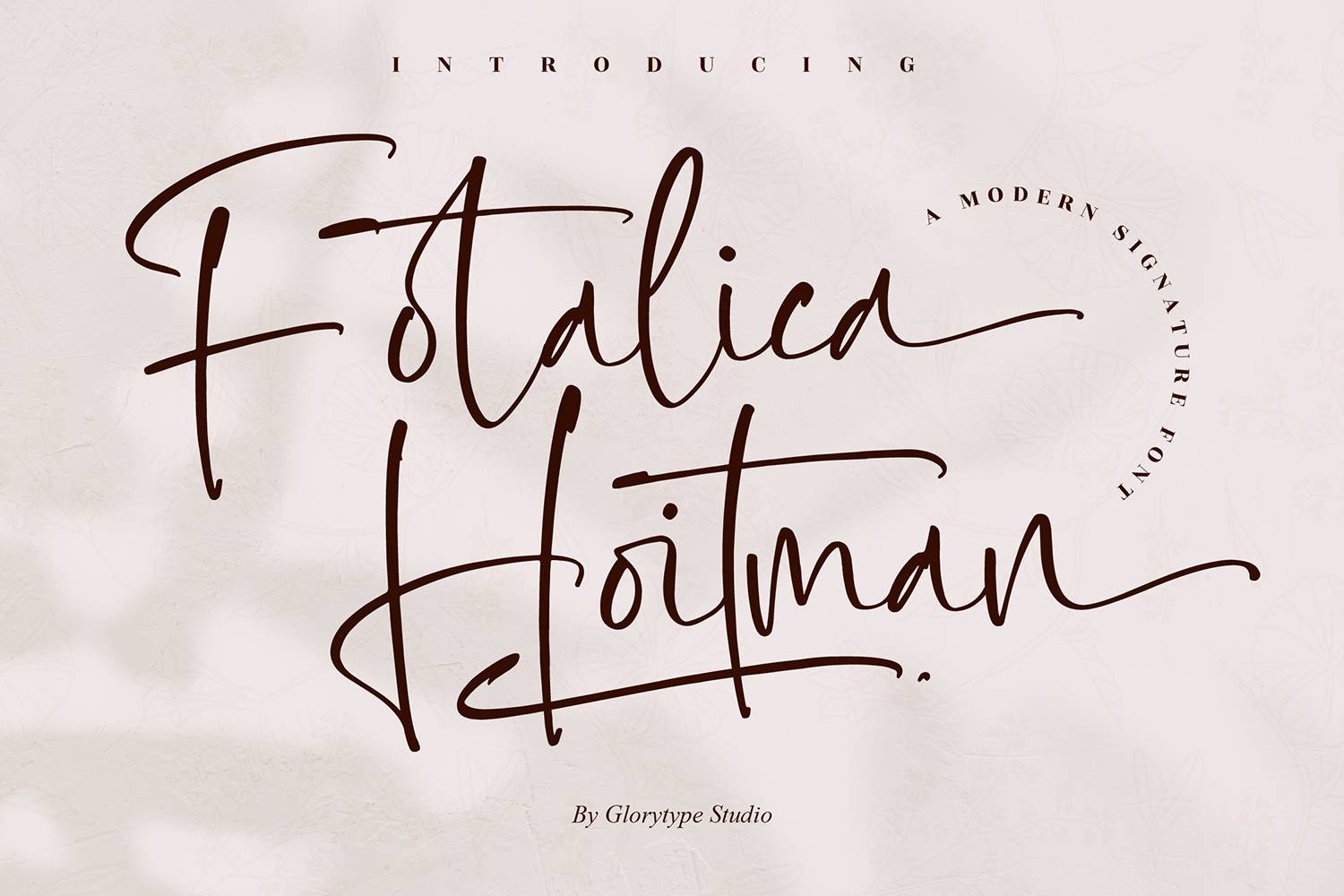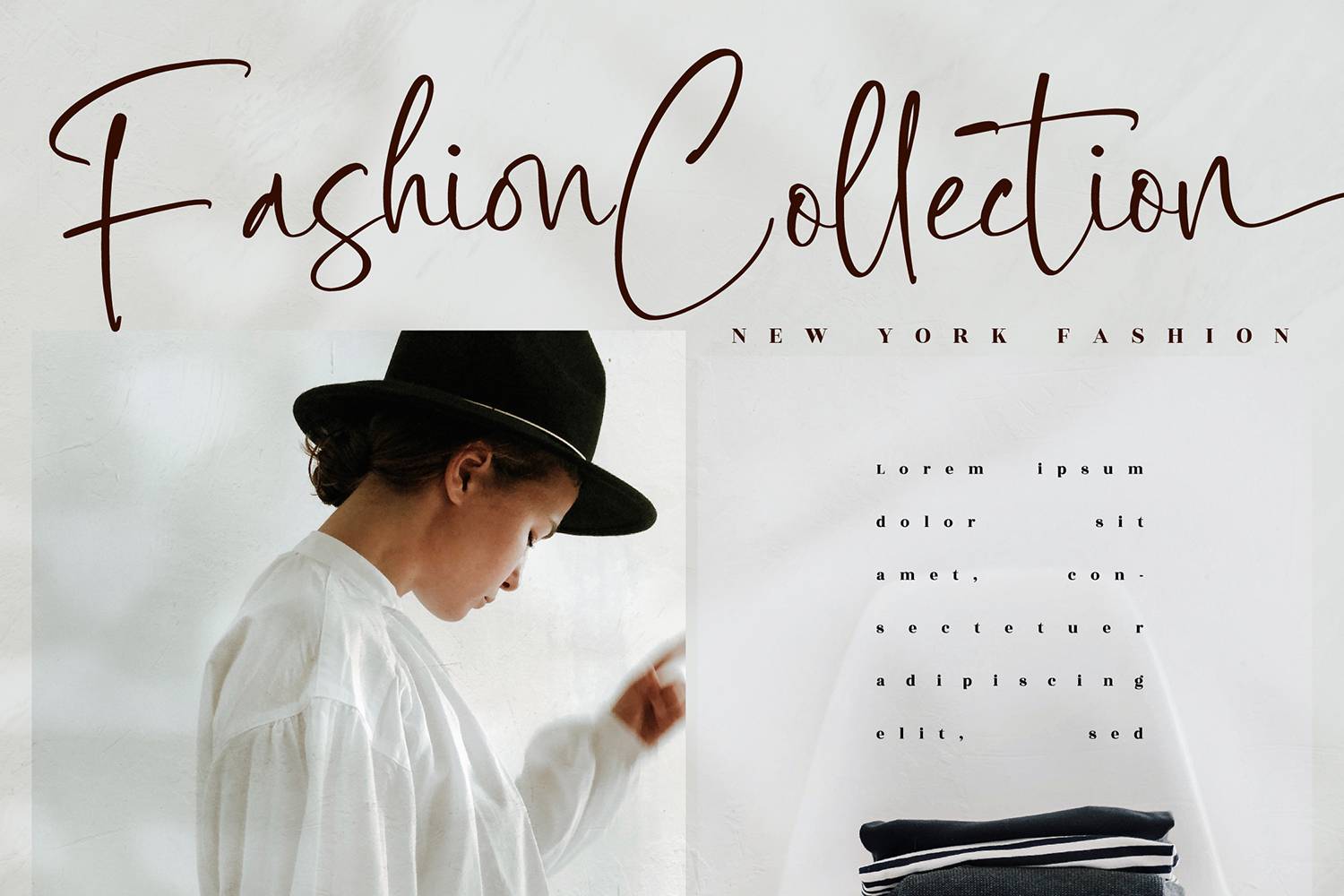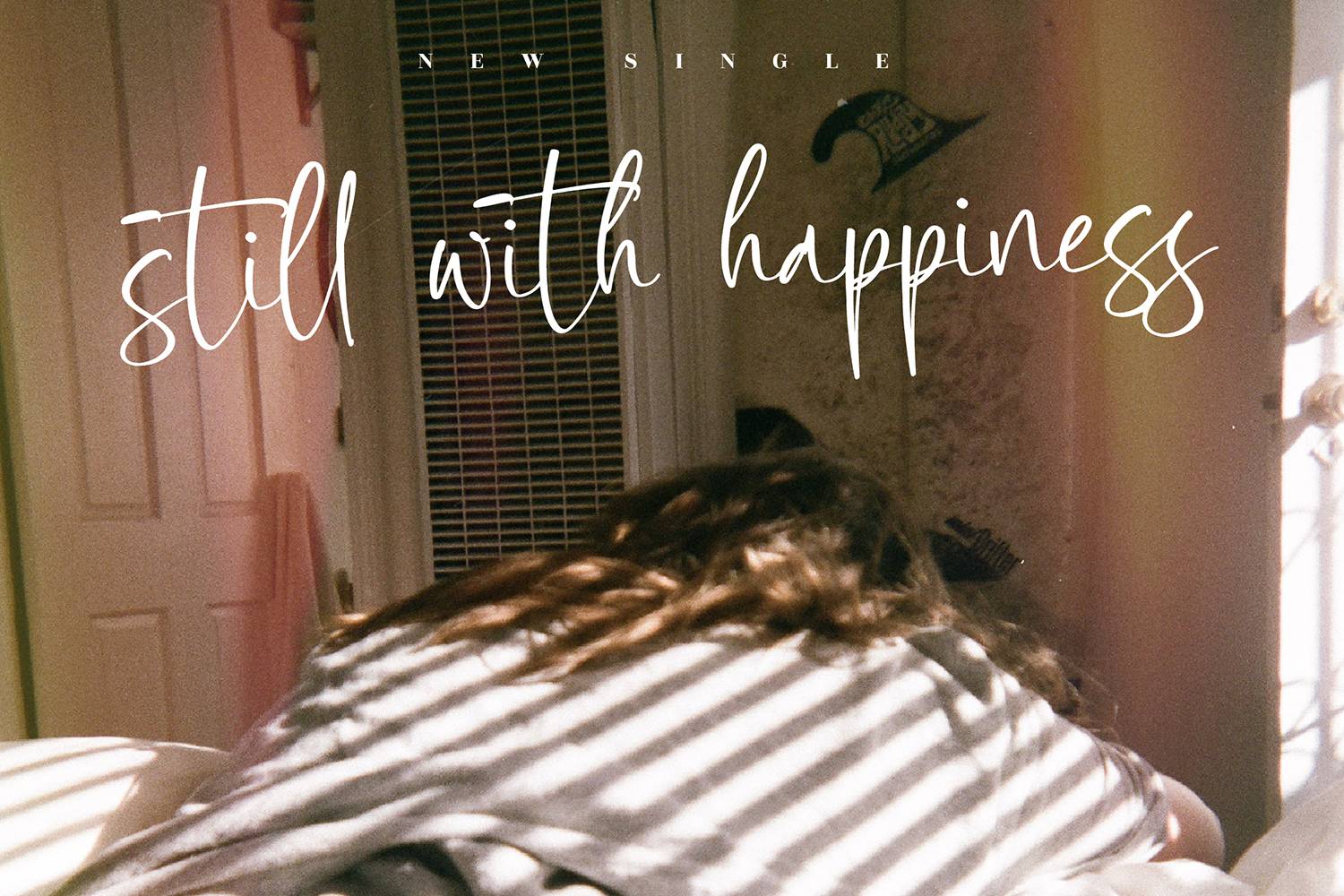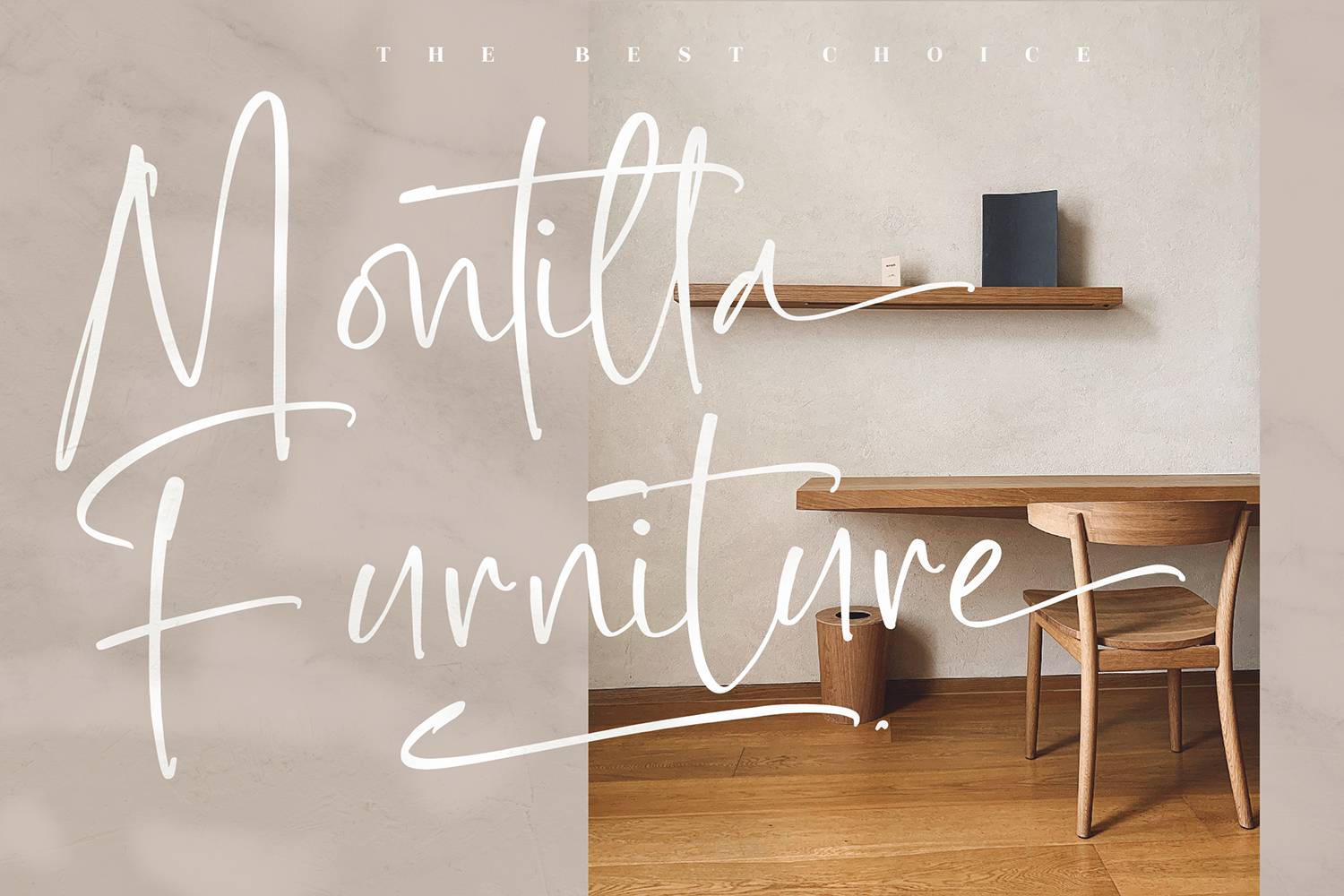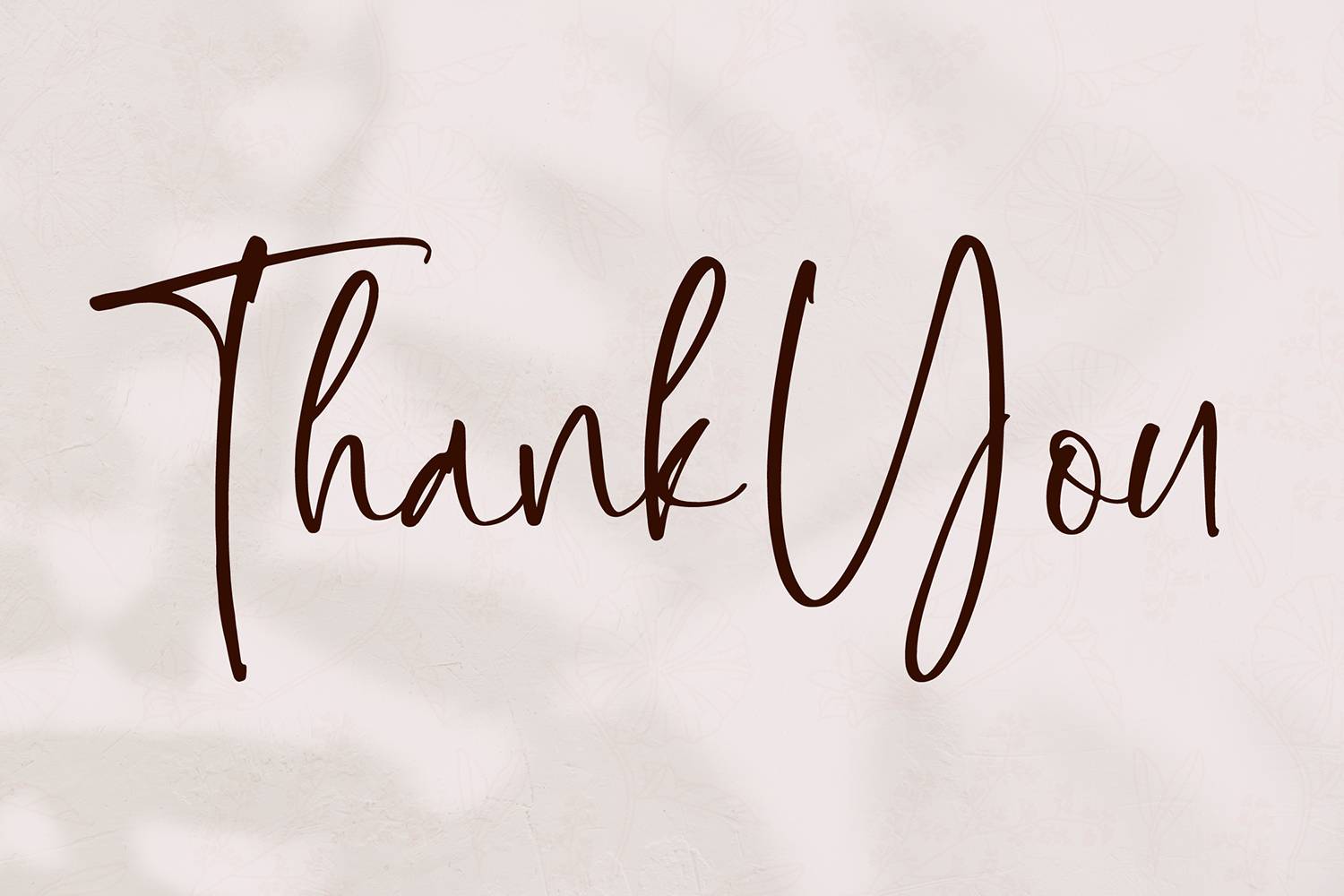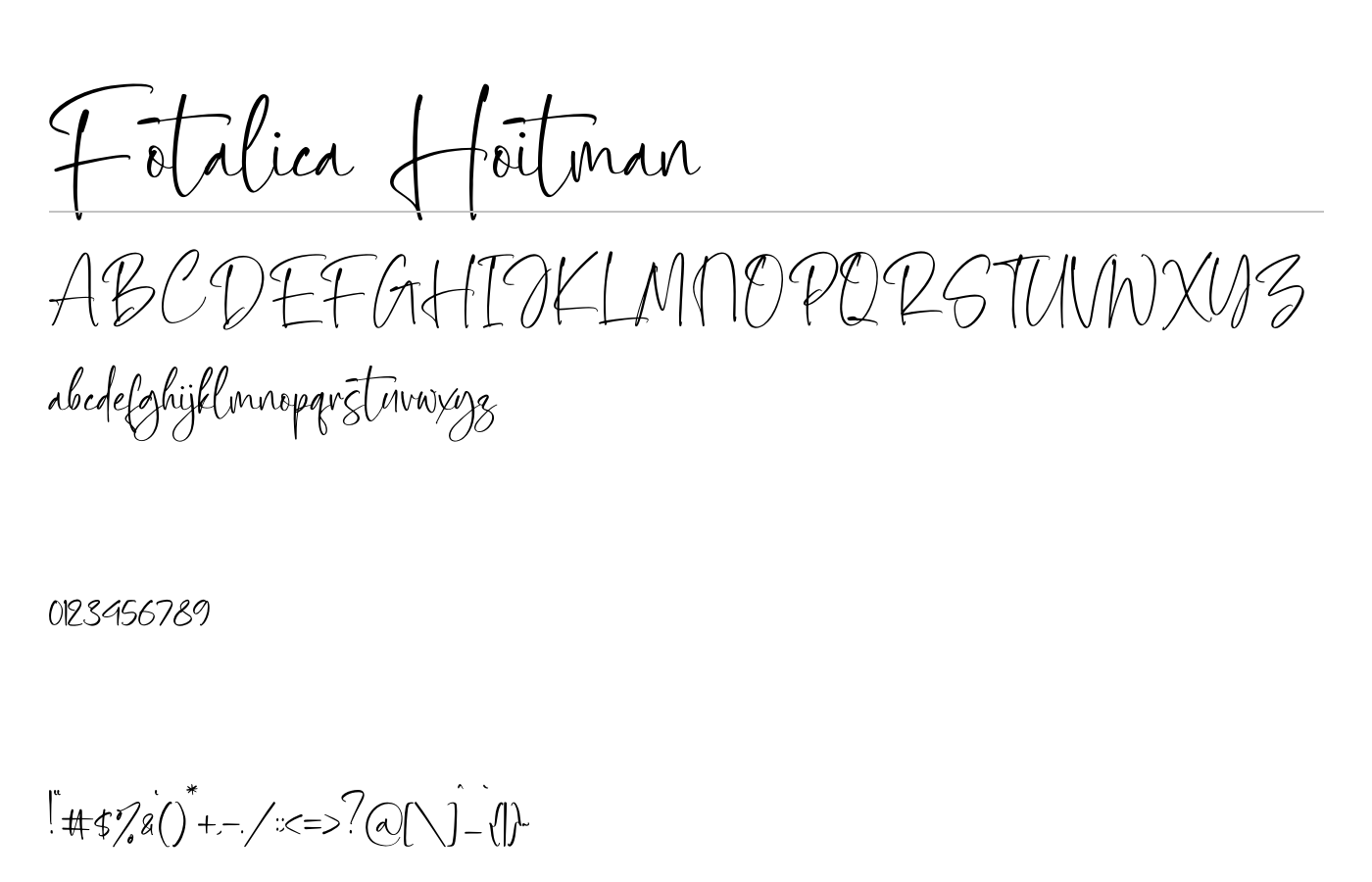
Fotalica Hoitman is a delicate, handwritten script font featuring tall, slender letterforms with a light weight and elegant flow. Its irregular, playful strokes and high contrast between thin and slightly thicker lines give it a personal and artistic feel, making it ideal for invitations, branding, and creative projects where a touch of sophistication and friendliness is desired. This font works best in headlines or short text, adding a charming and approachable character to any design.
Fotalica Hoitman Font